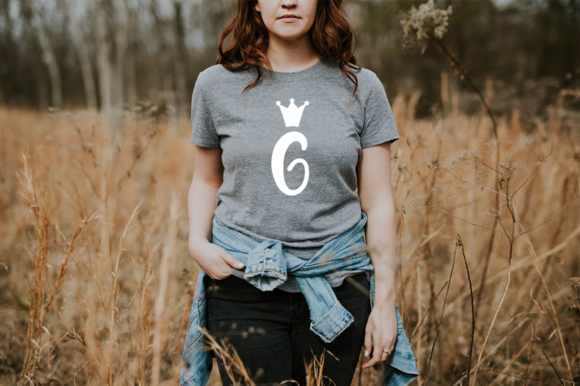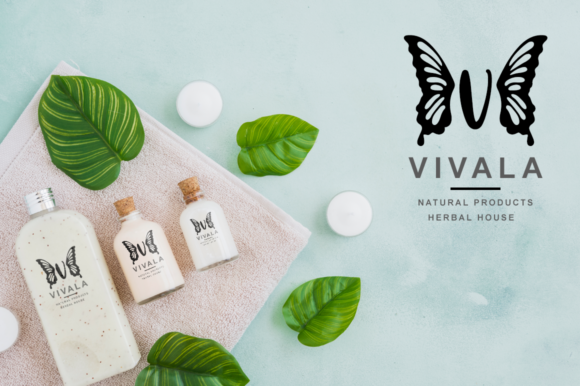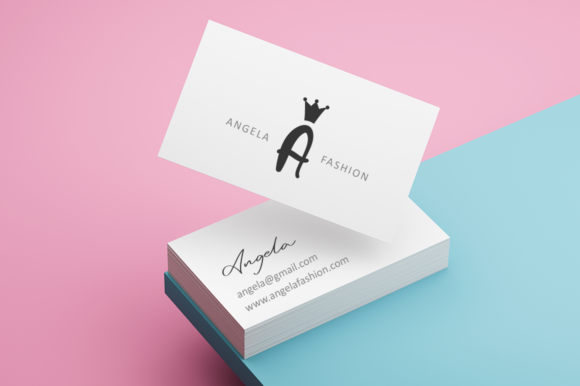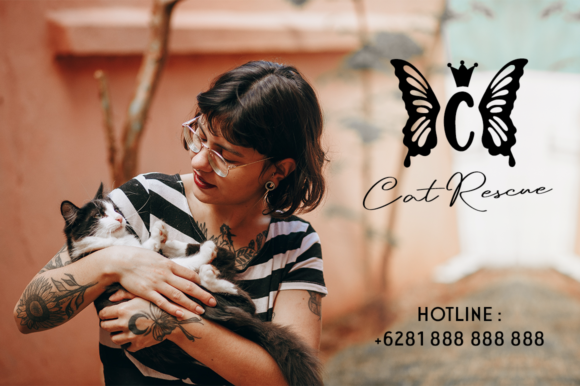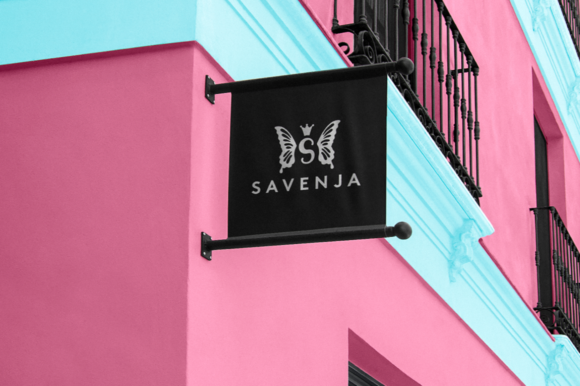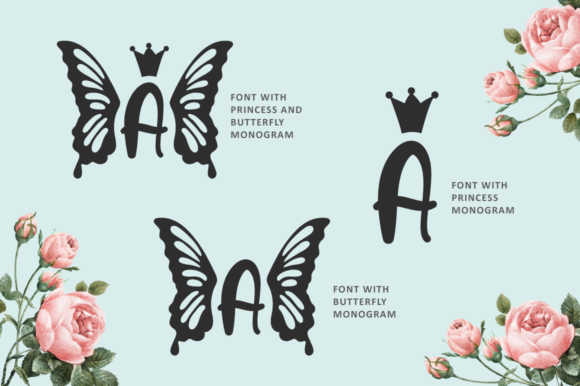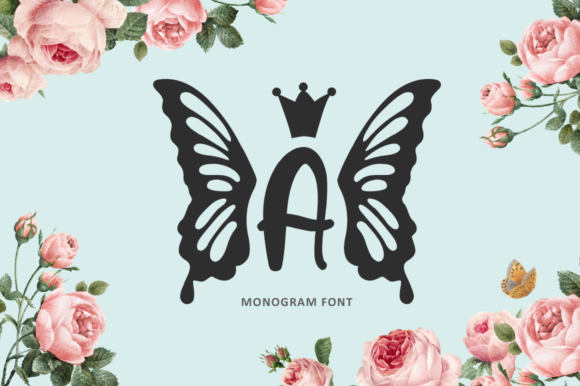
The Magical World of Butterfly Font: A Designer’s Delight
I’ll never forget the time I was working on a whimsical project for a children’s birthday party invitation. I had a clear vision of what I wanted to create, but somehow, the font just wasn’t cooperating. It was either too dull, too generic, or just plain boring. That’s when I stumbled upon the Butterfly Font, and it was love at first sight! 💕 This fun and playful decorative font is designed to catch all eyes on it, and I’m excited to share its magic with you.
As a designer, I’m always on the lookout for fonts that can elevate my projects and make them stand out. Here’s what I love about Butterfly Font:
- ✨ Unique butterfly decorations that add a touch of whimsy to any design
- ✅ Lovely characters that are easy to read and fun to use
- 🌈 A wide range of applications, from party invitations to branding and packaging
- 💻 Great for digital and print projects alike
Of course, no font is perfect, and Butterfly Font has a few quirks:
- 🤔 Some users might find the font a bit too playful for serious or formal projects
- ⚠️ Limited use of uppercase letters, which might be a consideration for some designs
One of the best things about Butterfly Font is its OpenType features and glyphs. These allow you to customize your text and make it truly unique. Here are a few tips:
Butterfly Font was created by a talented designer who wanted to capture the essence of whimsy and playfulness. Inspired by the beauty of butterflies and the joy of creative expression, this font is sure to bring a smile to your face. Whether you’re a designer, crafter, or creative hobbyist, Butterfly Font is the perfect addition to your font collection.